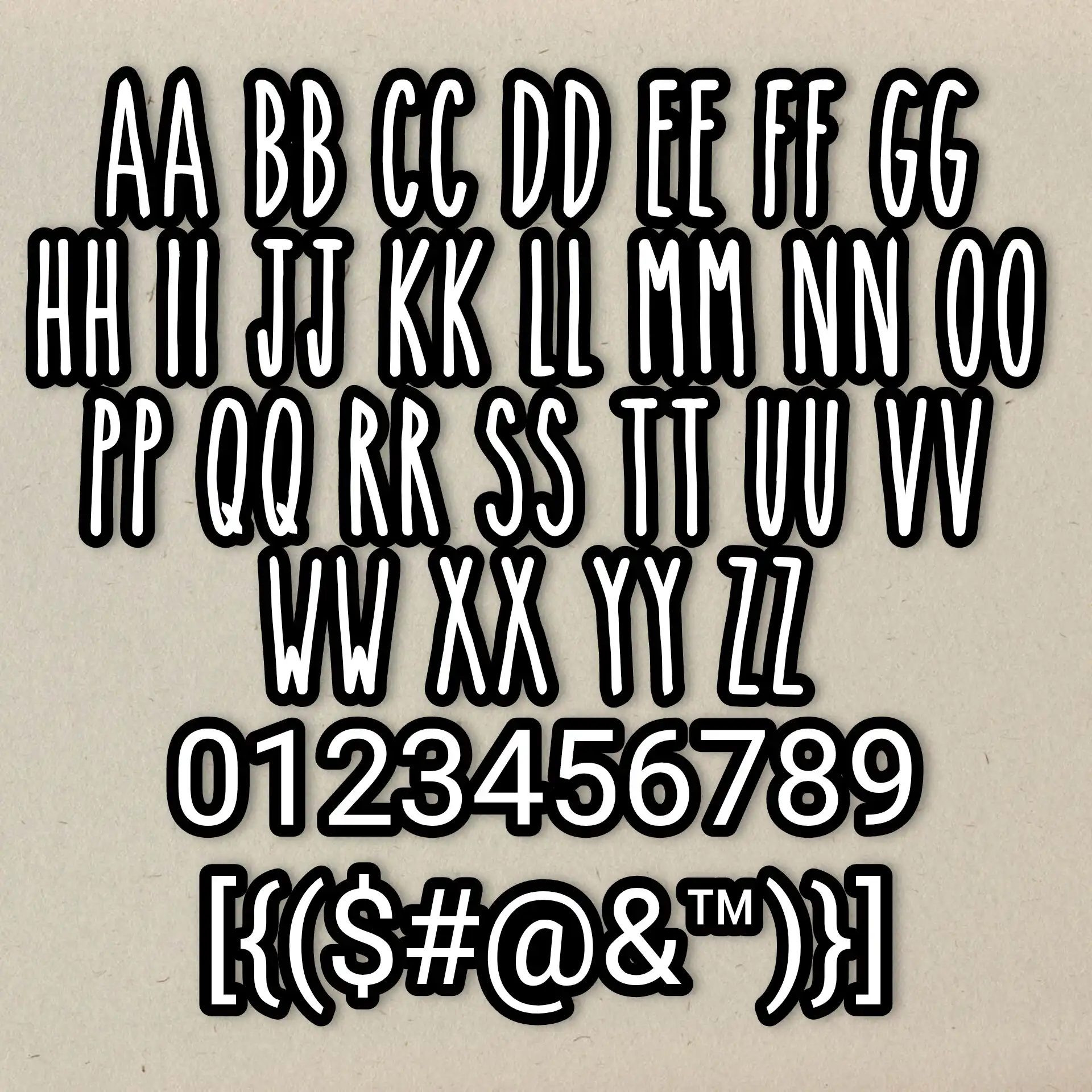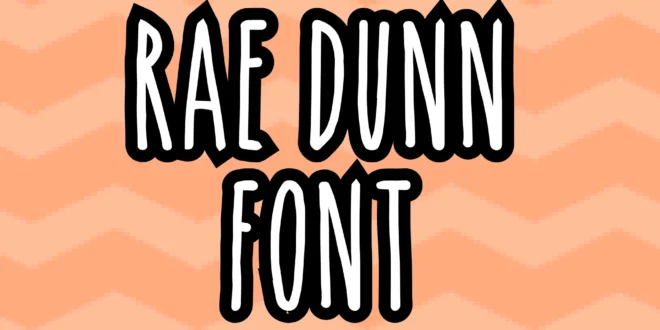
Rae Dunn Font
Written by hand and tasteful textual style are the profoundly respected typefaces that give one more degree of energy to the plan. The astonishing part about transcribed text styles is, that you can use them in many tasks. While discussing transcribed text styles it would most likely be out of line also Rae Dunn’s text style which is valued overall for being a traditional, social, and imaginative typeface. Rae Dunn’s textual style can be downloaded in different renditions.
Rae Dunn is a style and modern originator who in the wake of finishing a Four year certification paced in the realistic field. On the contrary, he makes her plans after getting motivated by little articles. The text style that the planner utilized in her plans is called the Thin text style. Justine Lazo, an American originator made the whole text-style family that has been usually utilized in various plots.
Rae Dunn Font History
Rae Dunn is a four-year college education holder who made planning her style in the wake of laboring for a couple of years. She finds motivation in little items and things and afterward chooses to make a plan. She is a painter and a traditional musician who favors effortlessness over innovation. Additionally, Rae Dunn has created numerous wonderful typefaces to date which is sufficient to call her one of the impressive originators.
The text style contains incredible ligatures and helpful numerals that make this textual style snappy and traditional. As a matter of course, Rae Dunn’s textual style is a Thin textual style that has a huge family that you can without much of a stretch utilize for various tasks.
Usage of Rae Dunn Font
This written-by-hand typeface can be knowledgeable about different places liberated from cost. Moreover, you can create numerous value-appreciating and remarkable plans and undertakings with this lovely old-style textual style. From utilizing it on sites to encountering it in various magazines, you have many choices for this text style.
Rae Dunn is an enormous assortment of typefaces that may be open without charges and permit limitations. Additionally, they can be used to show creativity in your school or college projects. Also, these text styles already helped thousands of students in their homework given by their school or college teachers.
1-Magazines
In Magazines, it is the highest decision for some architects. Numerous magazines have highlighted this textual style for the last numerous years.
2-Brands/Bundling
Written by hand textual styles are known for being the main textual style for brand advancement. They are ordinarily utilized for this reason thus does Rae Dunn text style.
3-Organizations
The organizations or enterprises likewise don’t pass up an opportunity to utilize this textual style on their logos or for some other reason. The textual style brings inventiveness and this is the thing organizations request.
Subsequently, you can undoubtedly use this textual style with Doll Patootie Textual style in your sites, plans, Logos, titles, marking, business work, distributing, sections, and much more.
Rae Dunn Font View
Rae Dunn Font
Similar Fonts to Rae Dunn
Most Frequently Asked Questions!
What Do You Call Rae Dunn Font?
It is named Thin text style. It is a manually written traditional typeface planned by Rae Dunn alongside numerous comparative typefaces. Moreover, Rae Dunn is an enormous group of text styles that carry wizardry to the plan and are ordinarily utilized all over the place.
Who Is Rae Dunn?
She is a traditional typeface creator who has made planning her enthusiasm. She did her single guys in a similar field and afterward saturated with her expert life to do ponders. Hence, Rae Dunn takes motivation from her plan from the Earth and other little items.
Where You Can Use Rae Dunn Font?
You can use this slick textual style for marking advancement, sites, Logos, Magazines, Titles, printing work, distributing work, and numerous different situations.